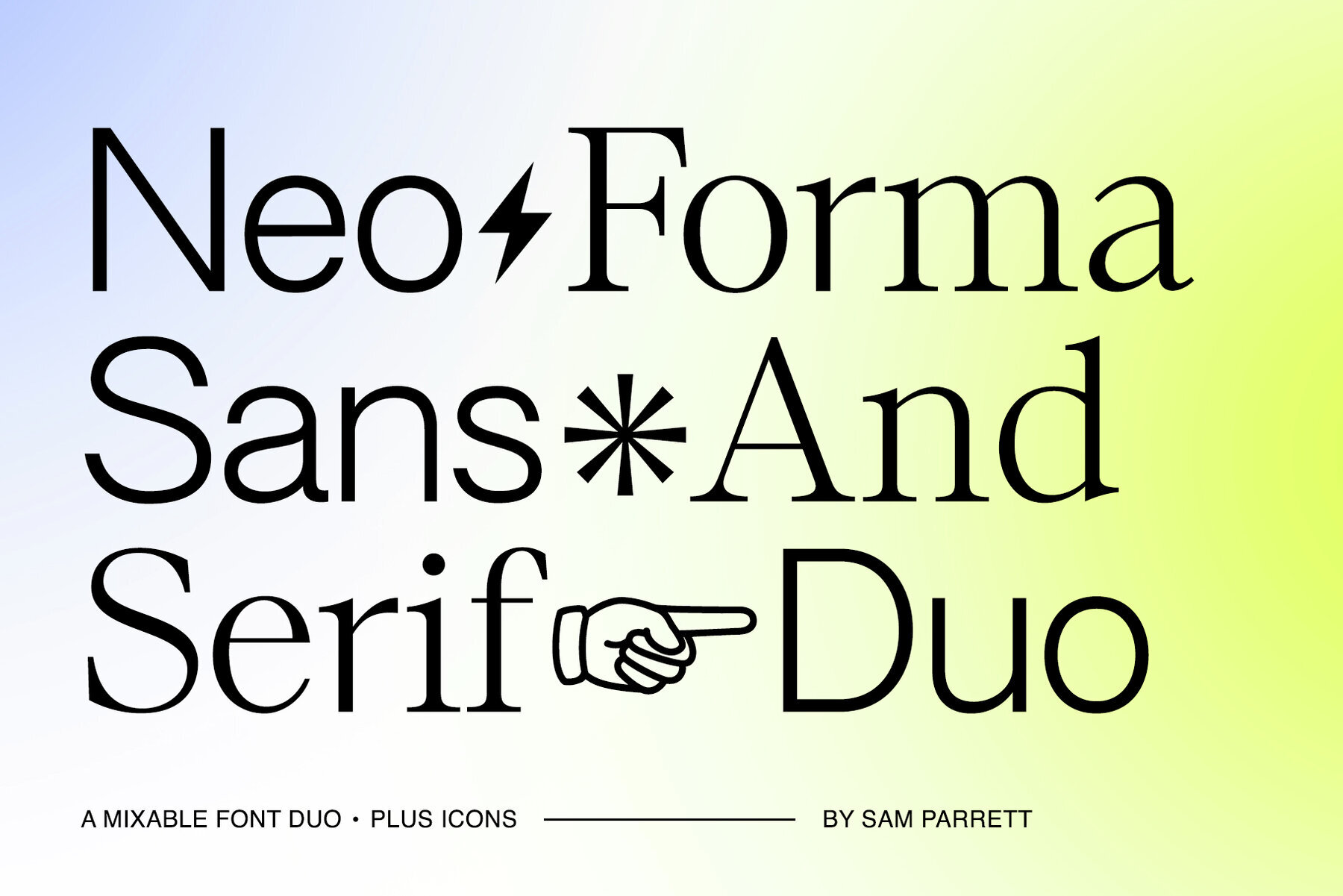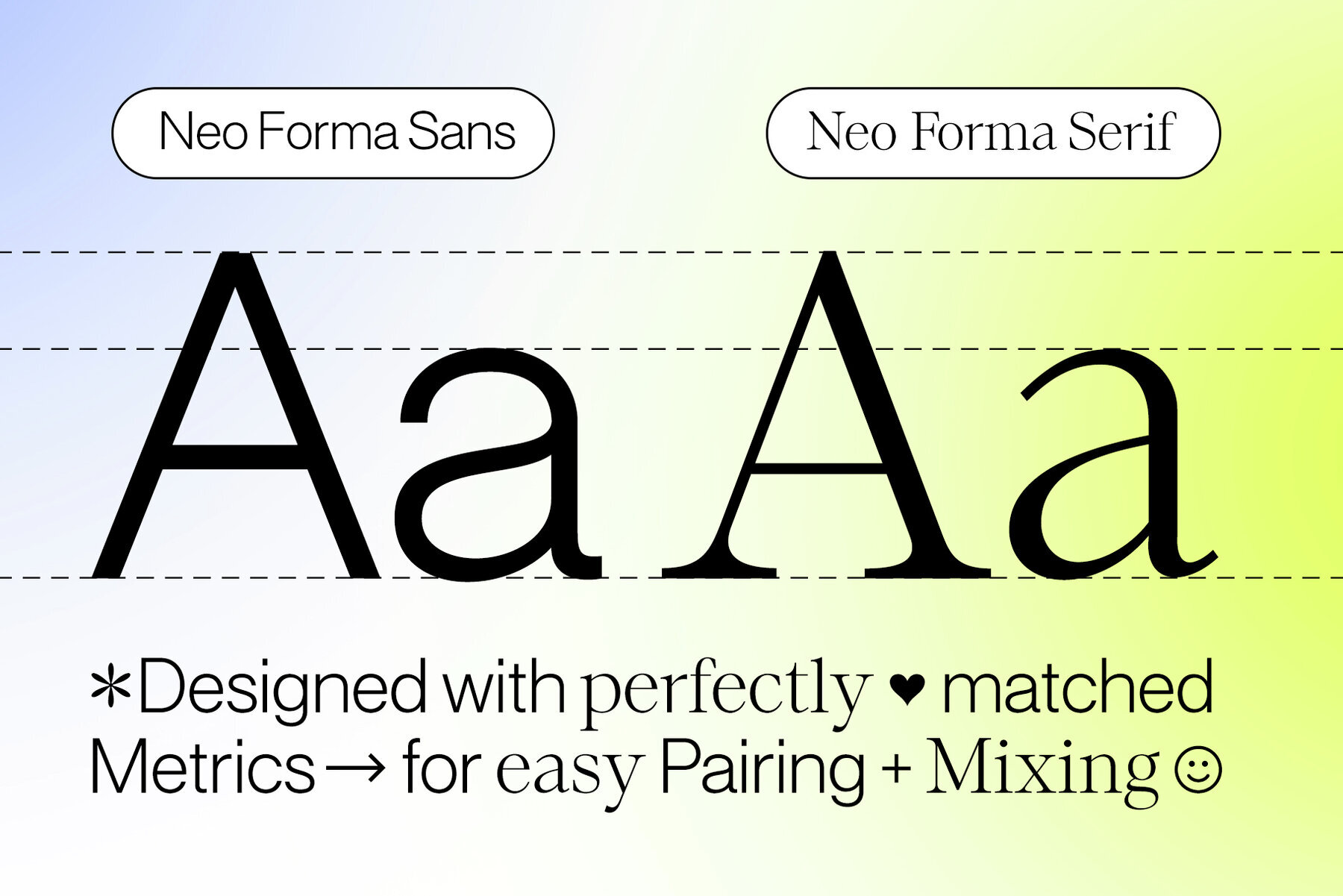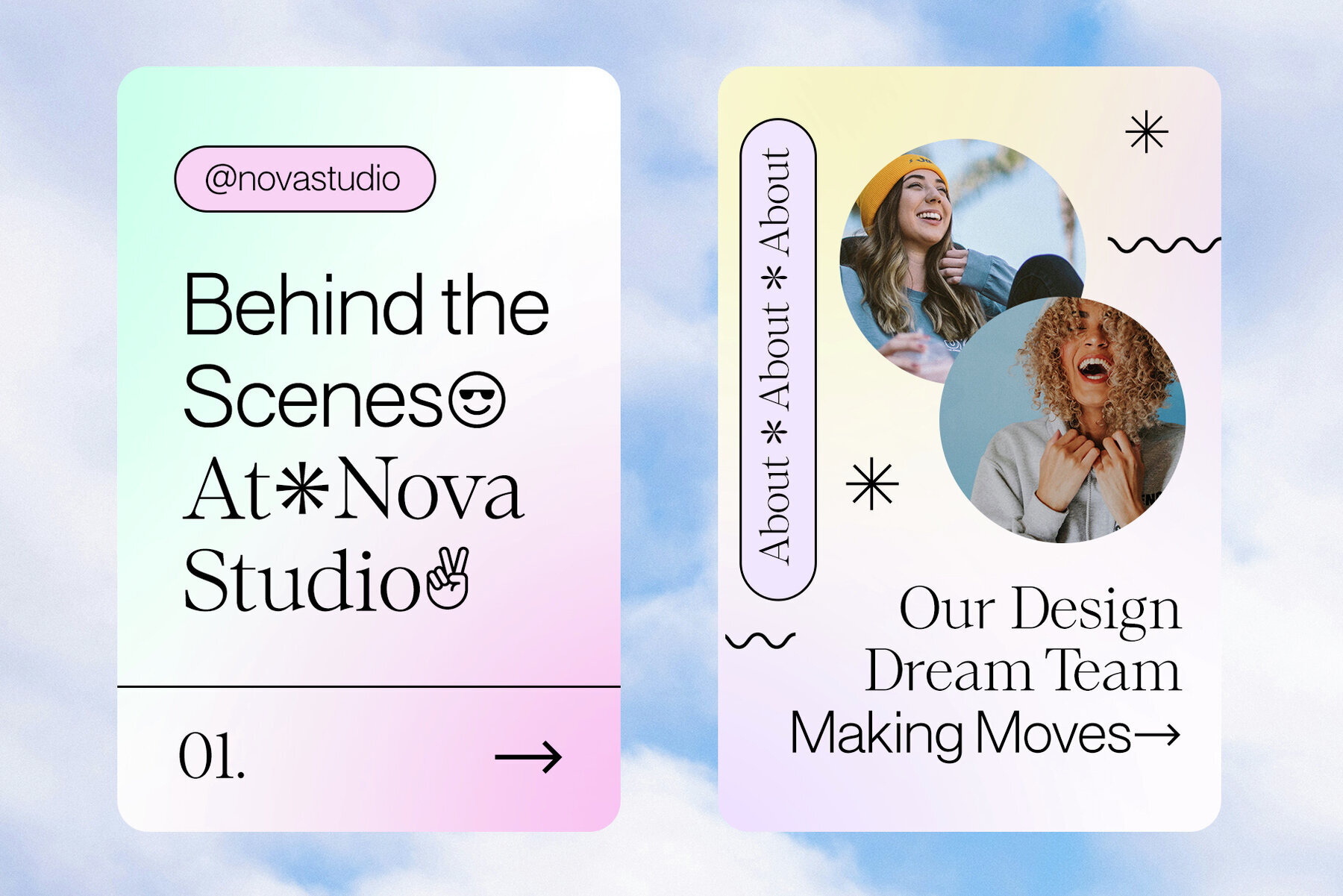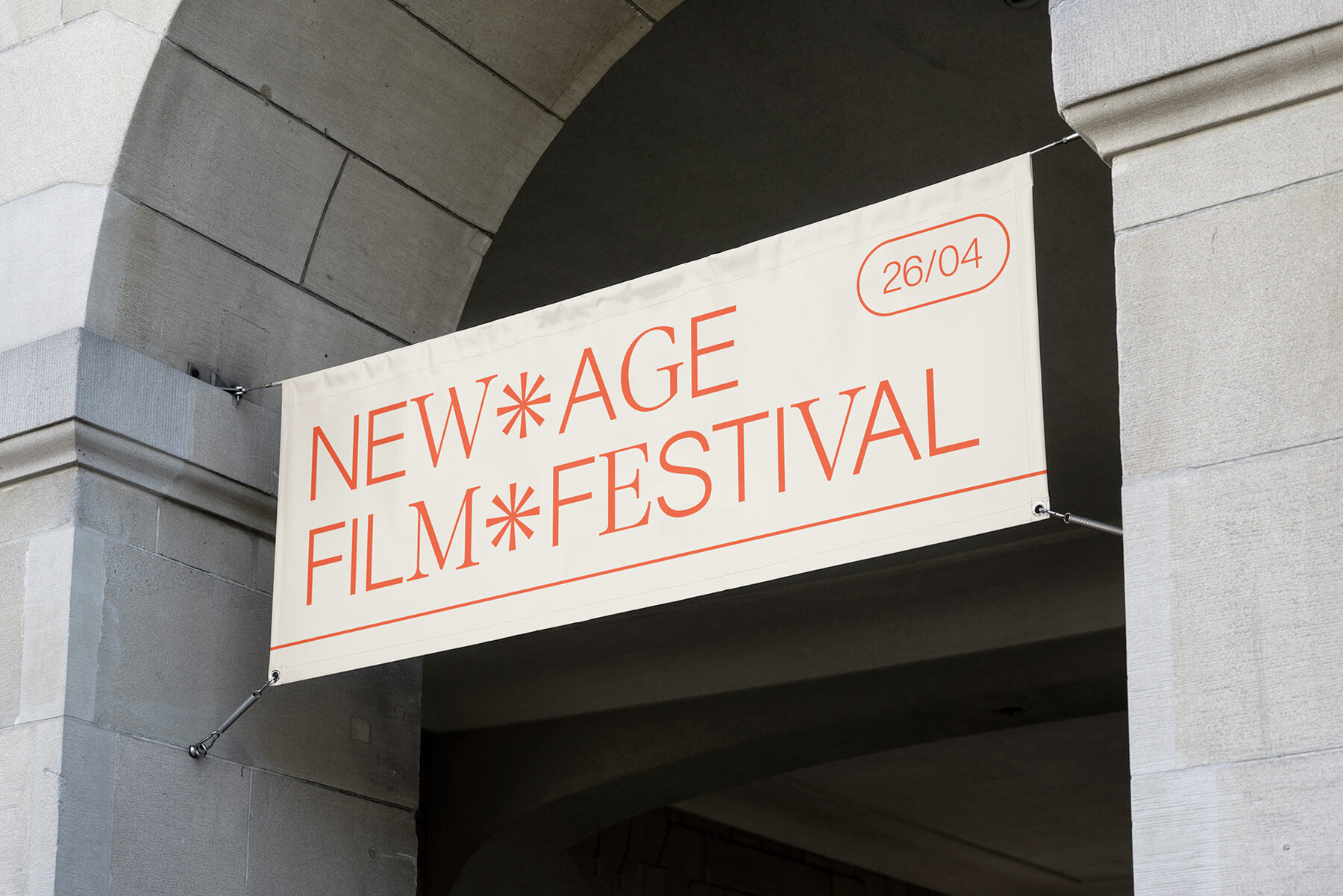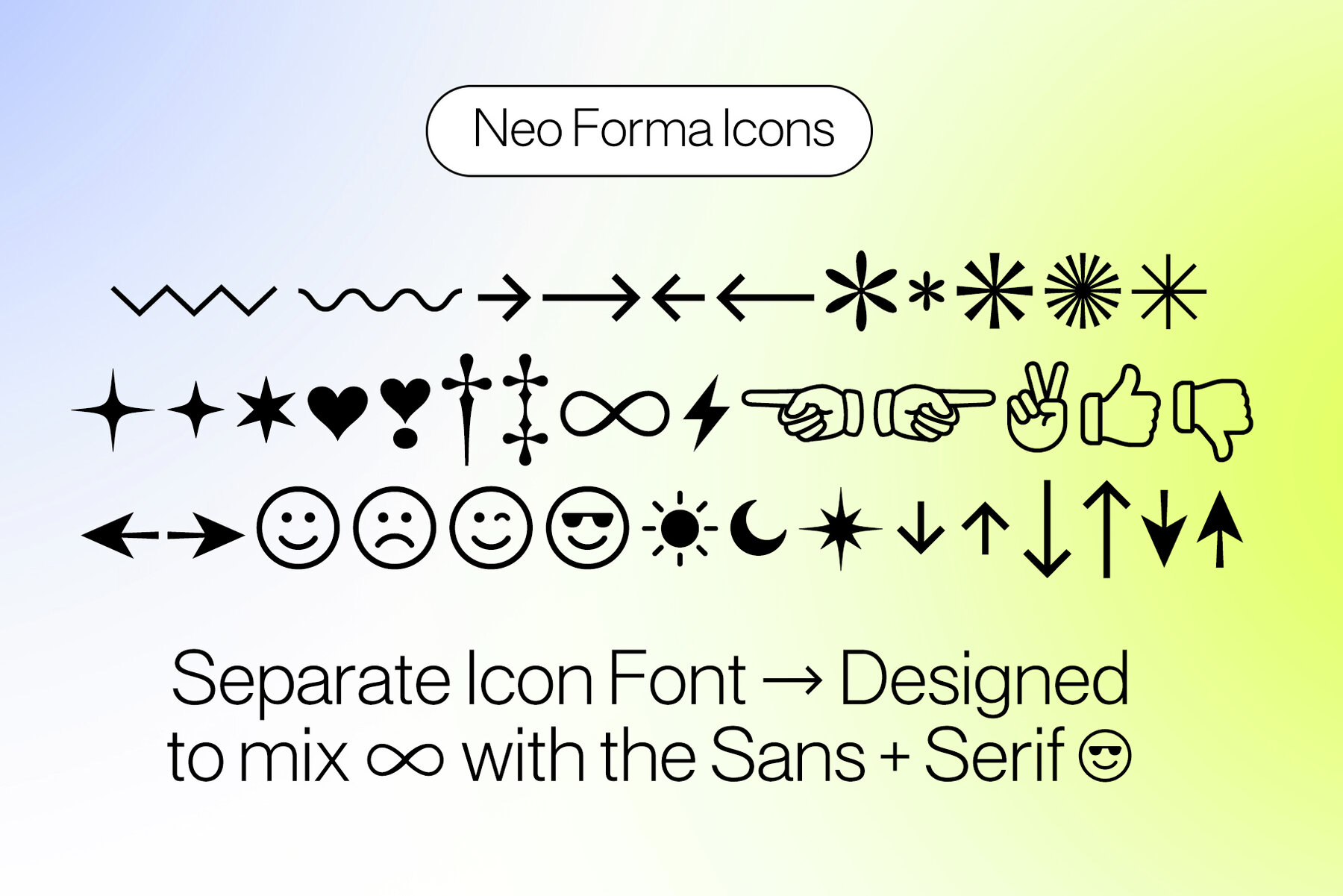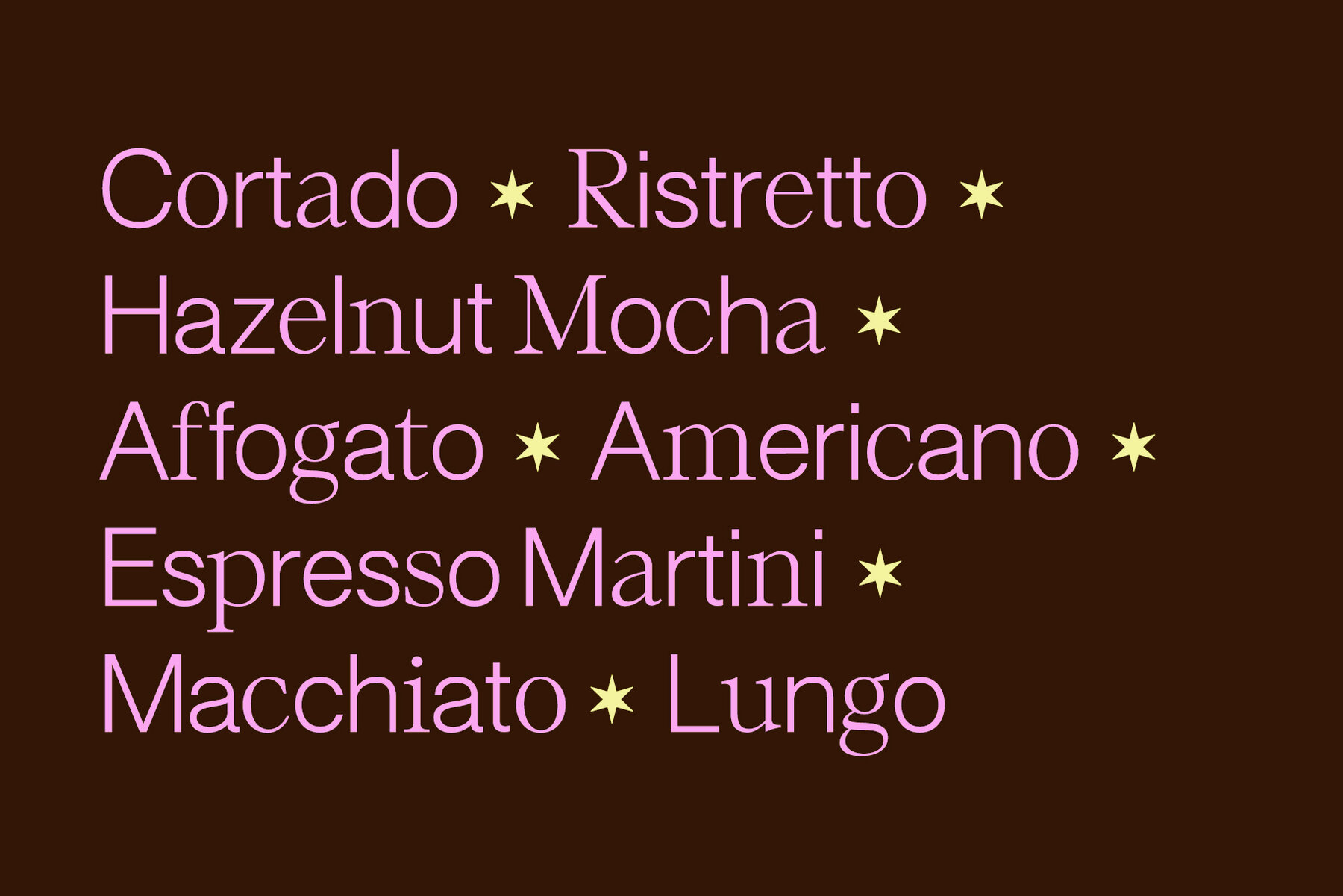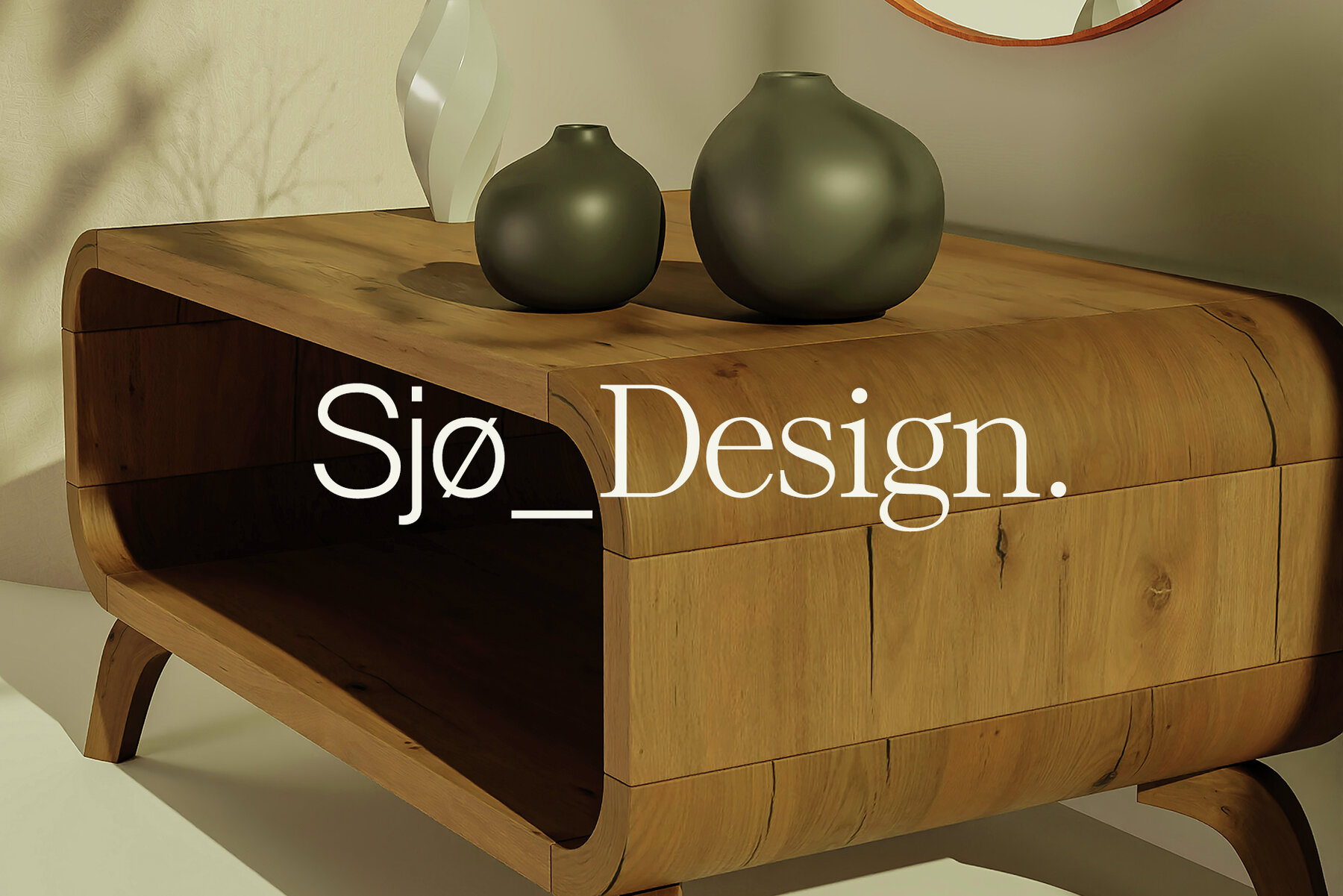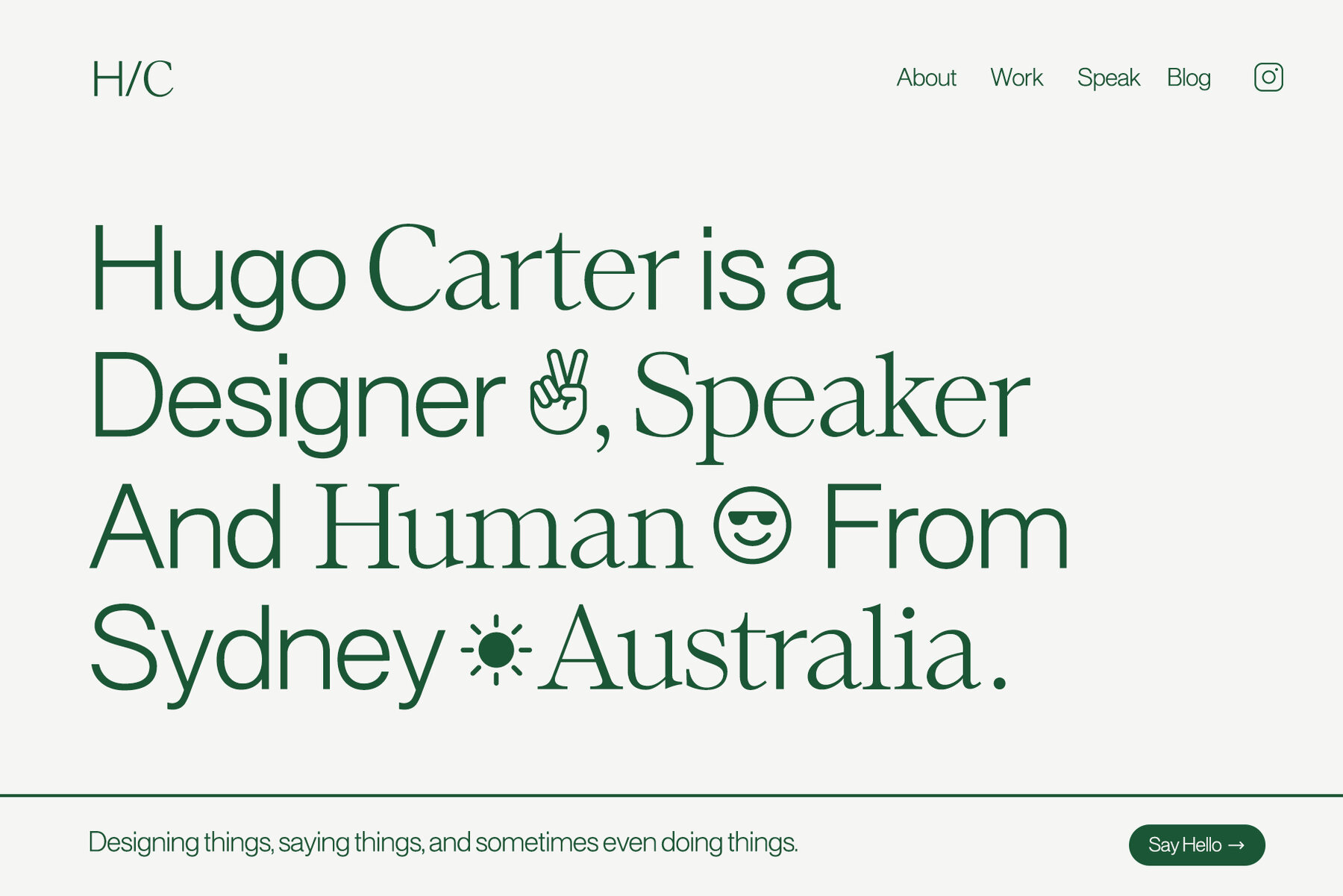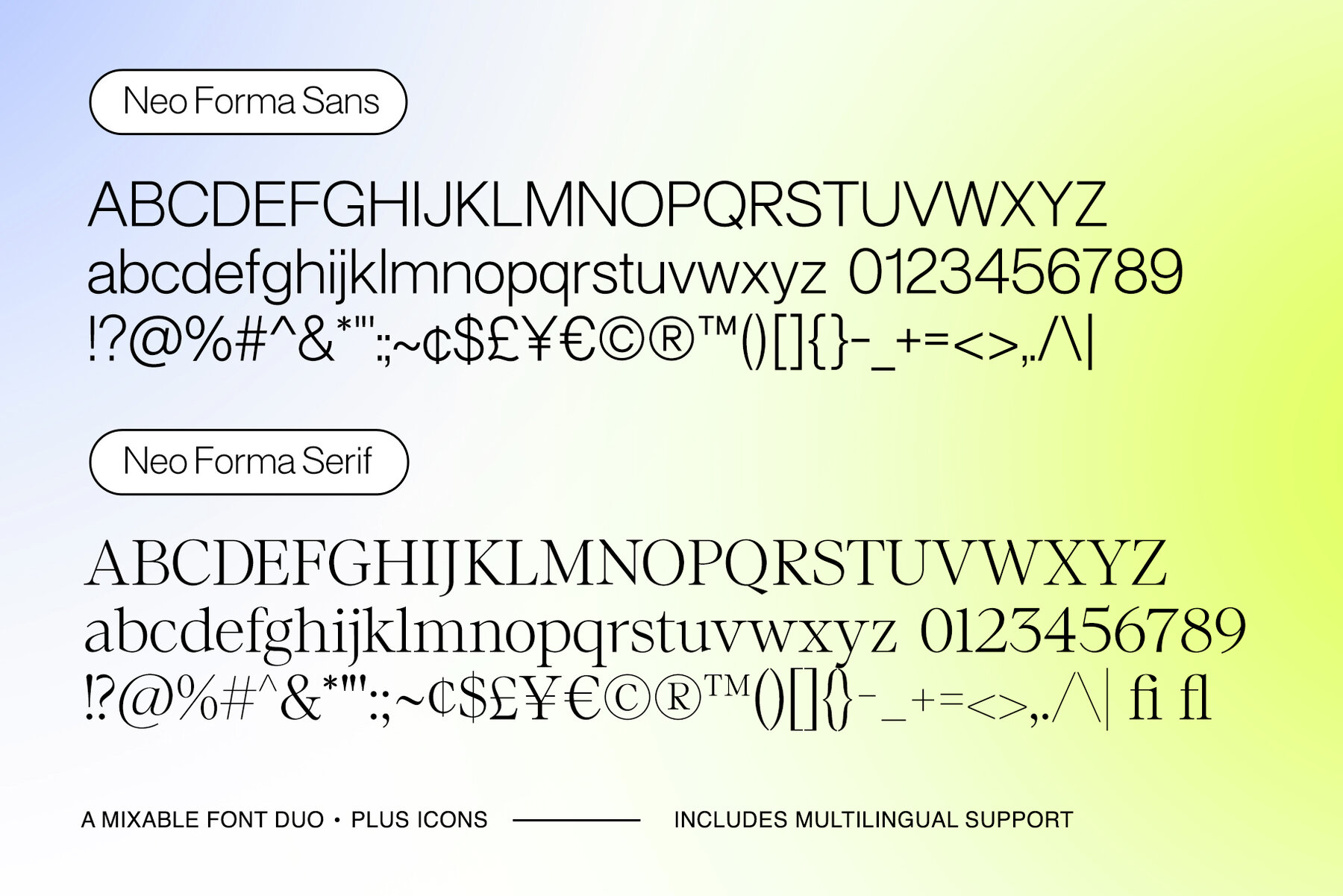
Neo Forma Font Duo
Neo Forma is a thoughtfully curated pair of modern Sans and Serif fonts that seamlessly complement each other. Designed to solve the challenge of mismatched font combinations, Neo Forma offers a cohesive look with coordinated weights and metrics. Neo Forma offers a comprehensive solution for designers looking to maintain consistency while exploring creative pairings in their typography projects. Perfect for those aiming to achieve a modern aesthetic with minimal effort.Neo Forma Font Duo: A Harmonious Sans & Serif Combination
Versatility